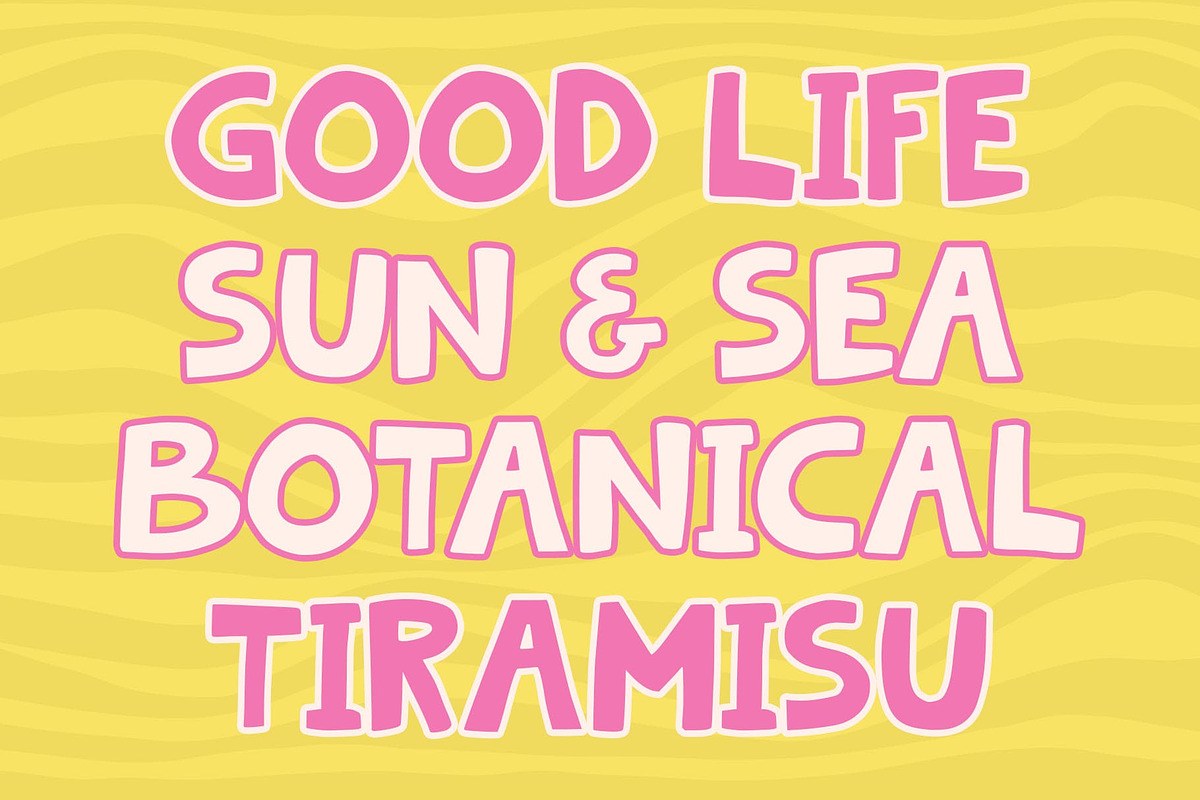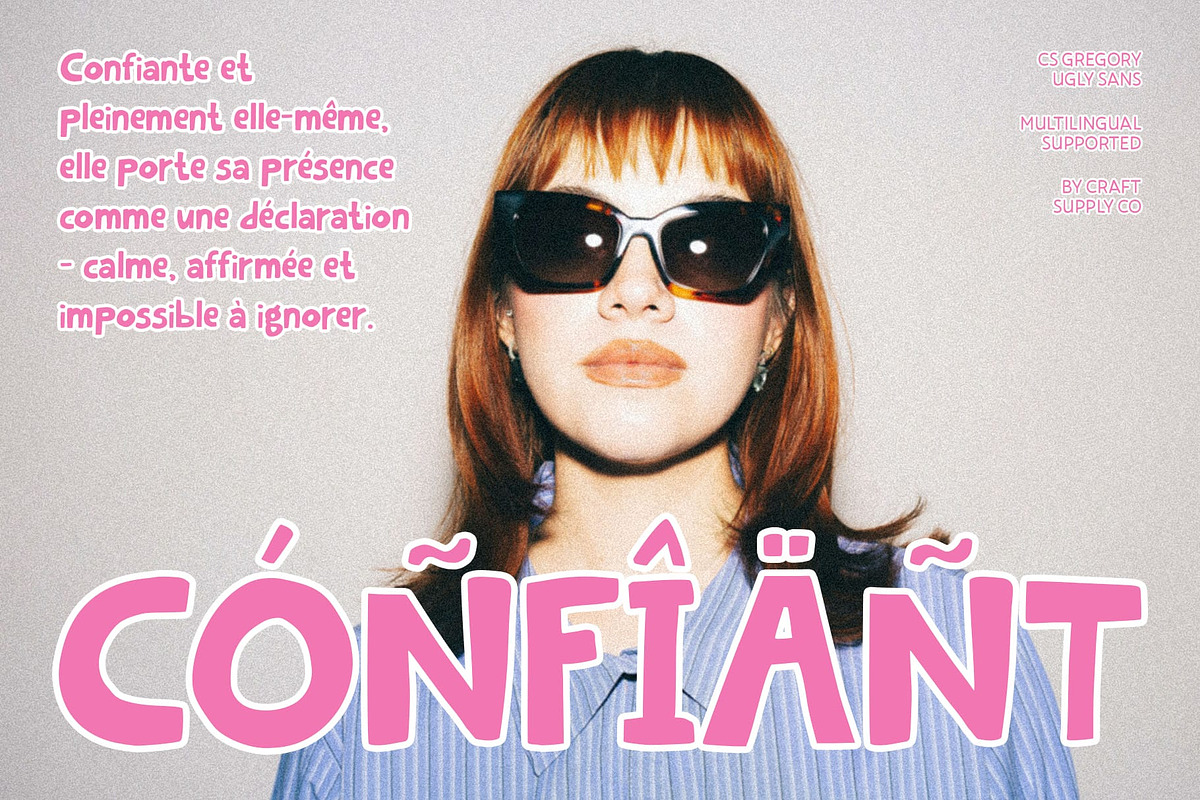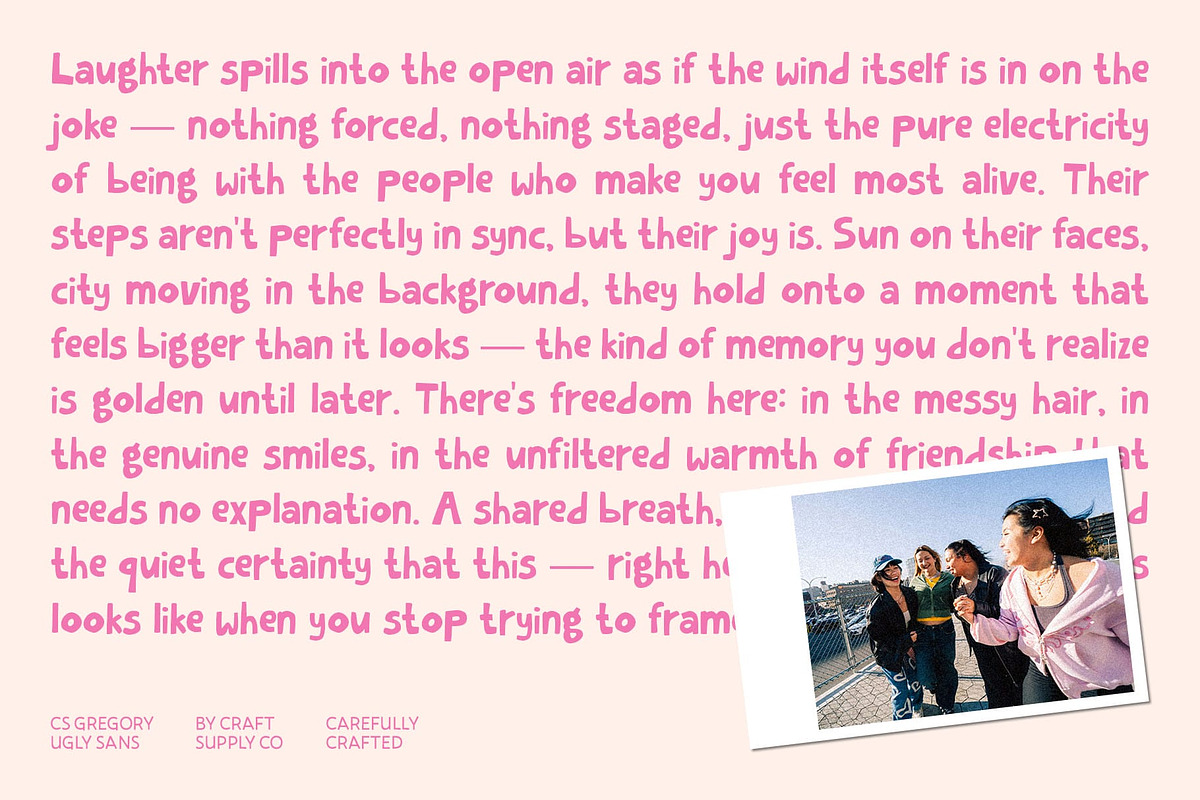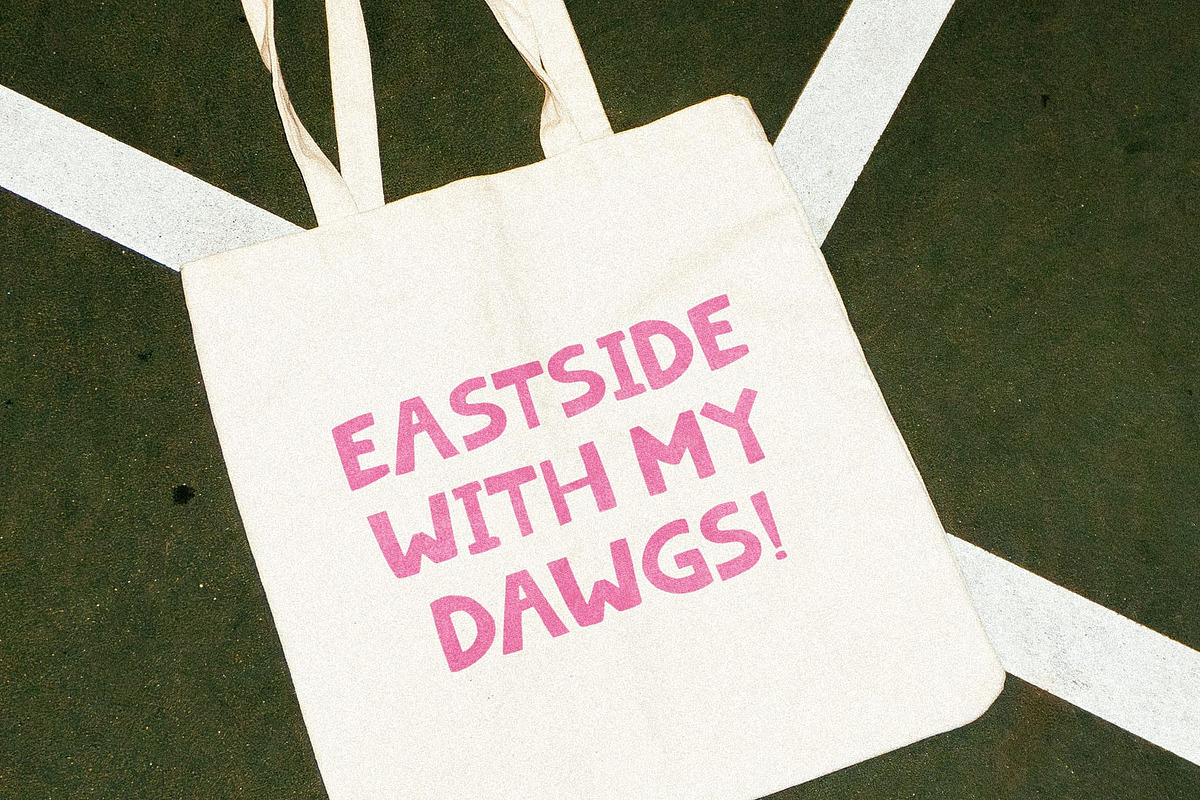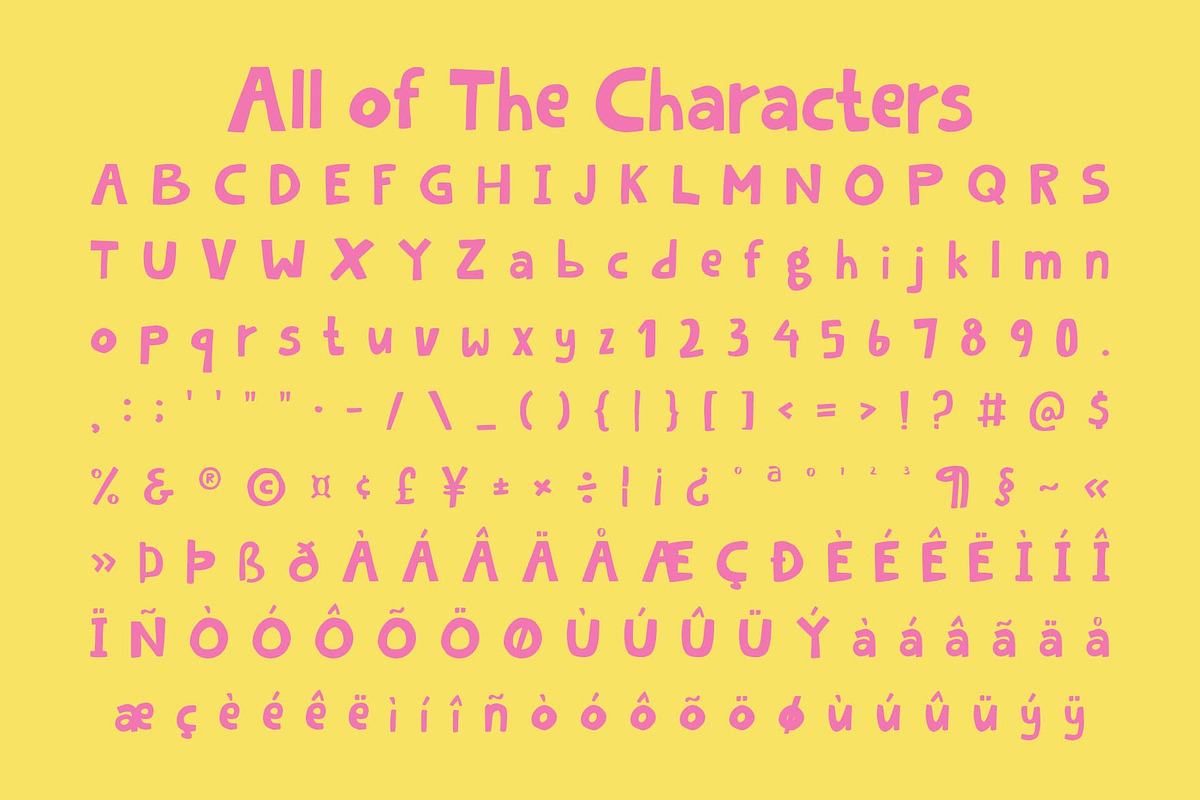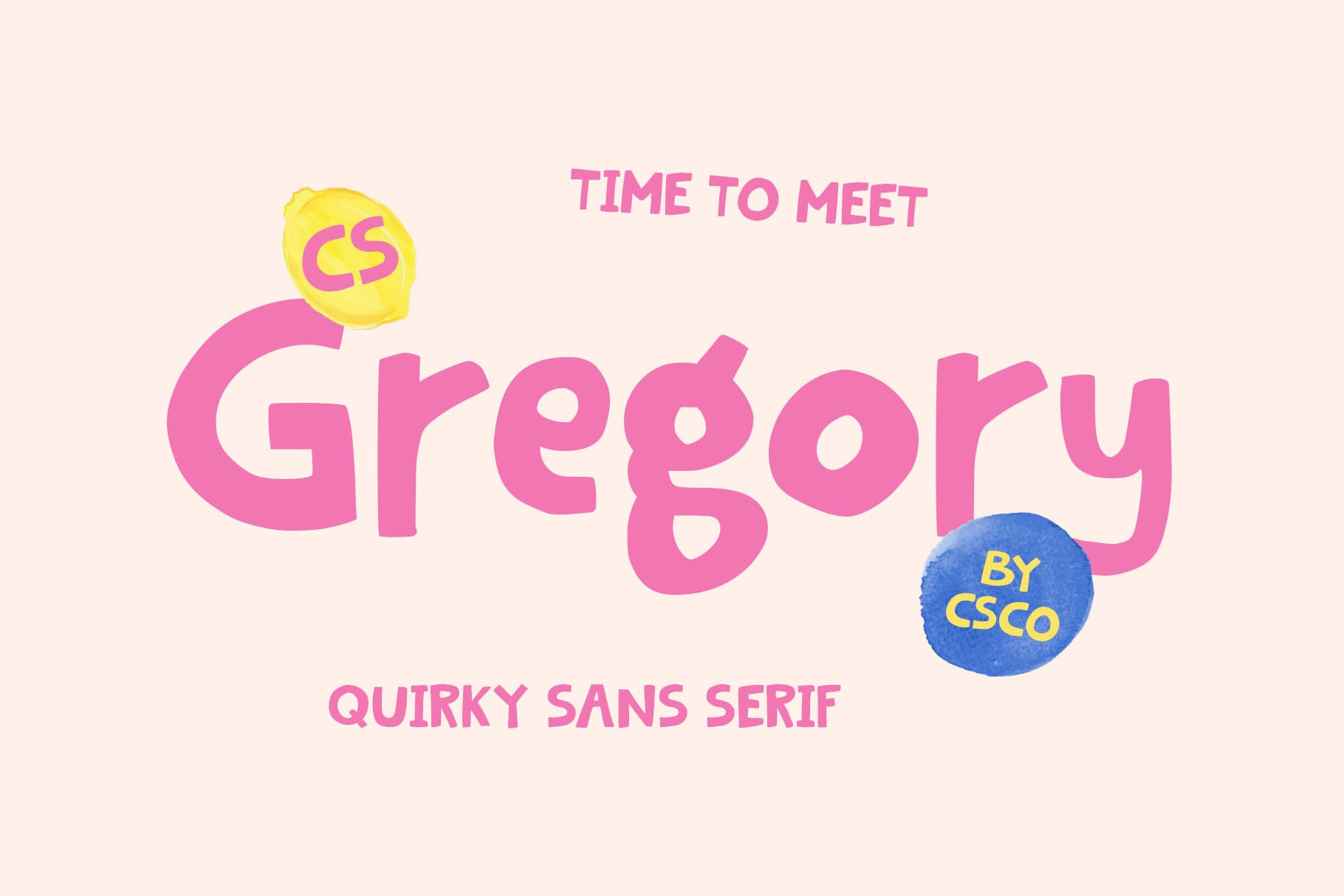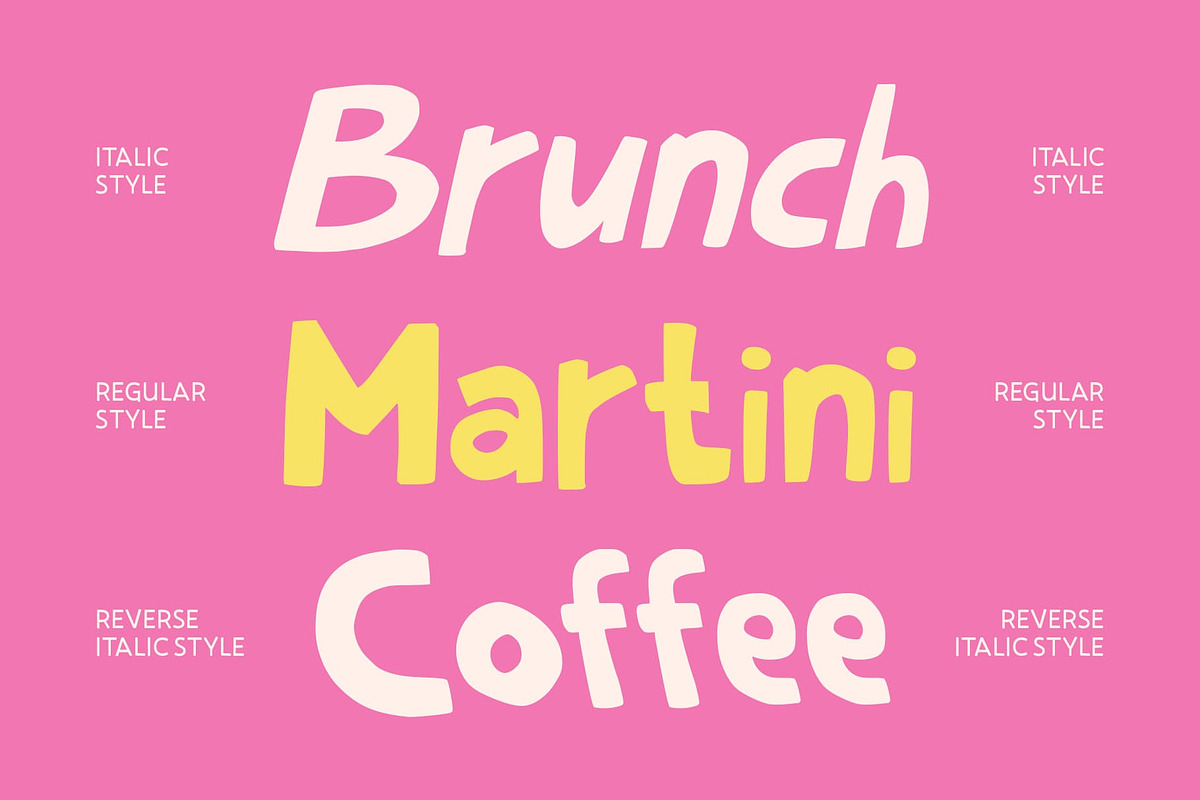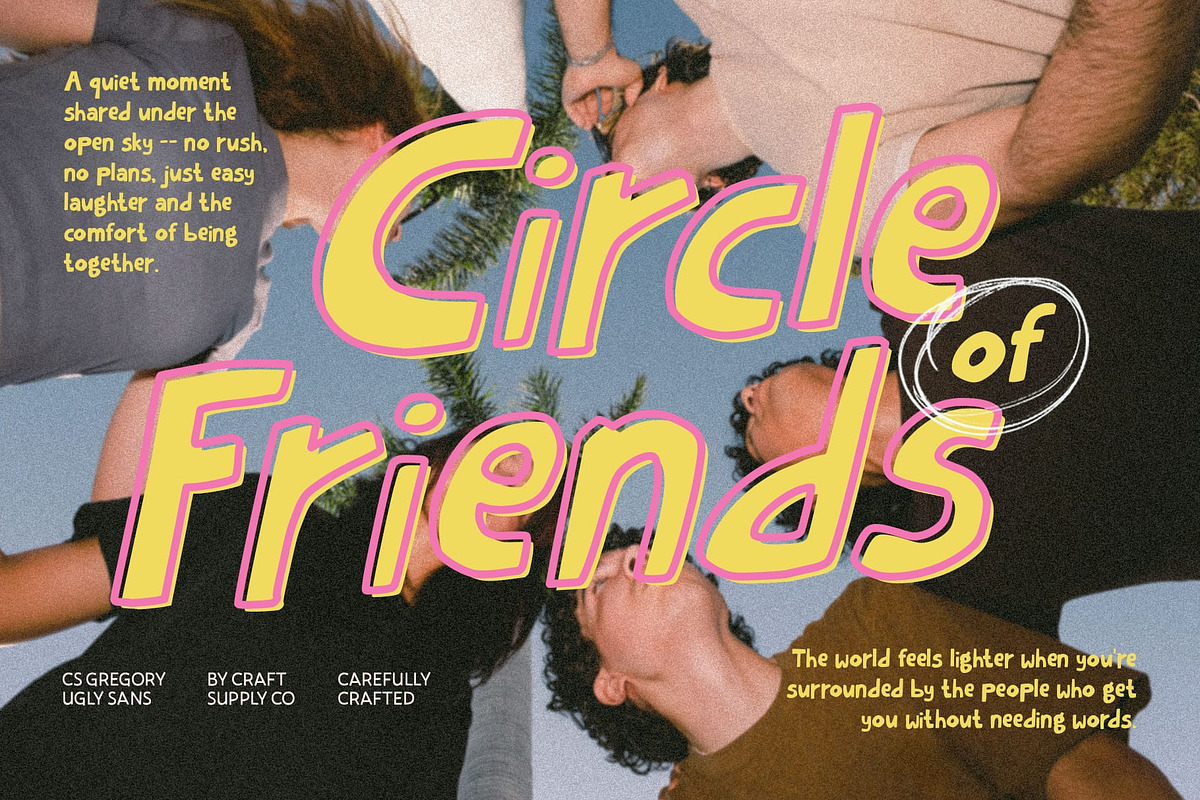
CS Gregory – Quirky Font
CS Gregory – Playful Personality with Quirky Charm
Modern Meets Handwritten Expression This is a cheerful and distinctive display font that merges modern sans serif structure with the free spirit of handwritten style. Each character carries an unconventional twist slightly irregular yet full of life creating a font that feels spontaneous, creative, and genuinely human. It’s designed to bring personality and warmth into every project.
Playful Shapes with a Happy Vibe This quirky “ugly-beautiful” font embraces imperfection as part of its charm. The unusual letterforms and playful proportions give this font a joyful and expressive energy, making your text feel fun and approachable. It’s a perfect choice for designers who want to communicate positivity, creativity, and uniqueness through typography.
Perfect for Bold and Creative Branding This font shines in posters, logos, and editorial layouts where personality matters. Its lively rhythm and handcrafted character make it ideal for brands that want to stand out with confidence and charm whether in youth-oriented designs, art events, or lifestyle campaigns.
Typography That Smiles Back More than just a font, this font is a celebration of playfulness and originality. It turns words into expressions of joy and individuality, making every design feel personal and engaging. Use it when you want your typography to radiate happiness, creativity, and a distinct sense of fun.
- CS Gregory Regular
- CS Gregory Italic
- CS Gregory Reverse Italic